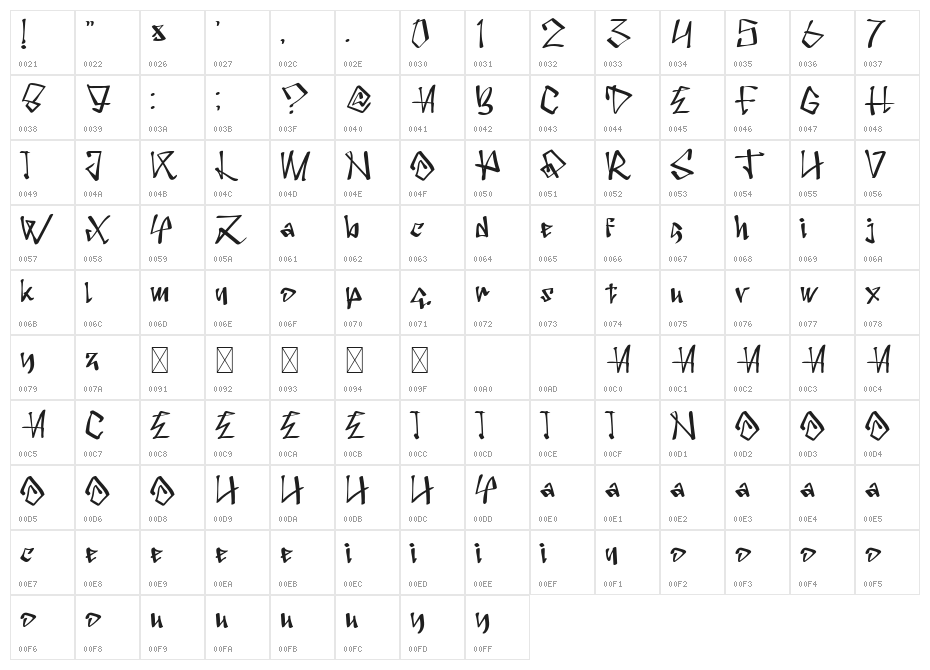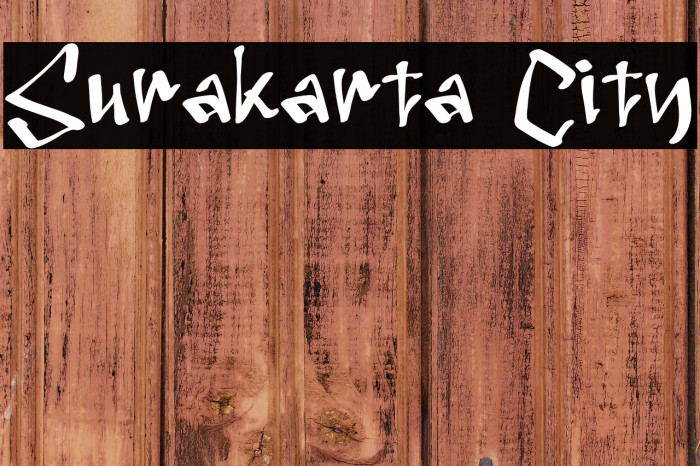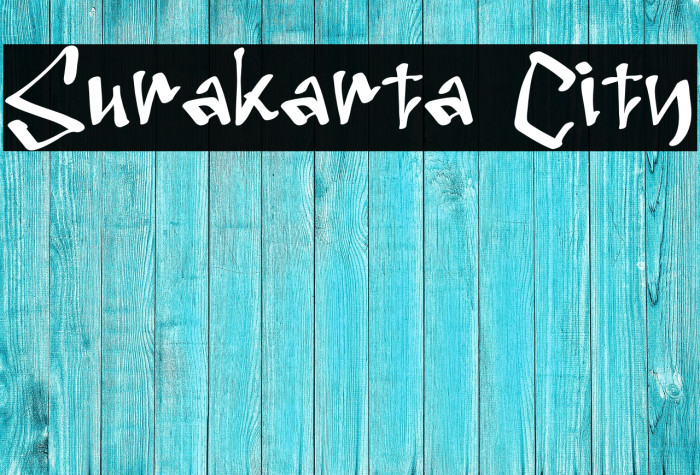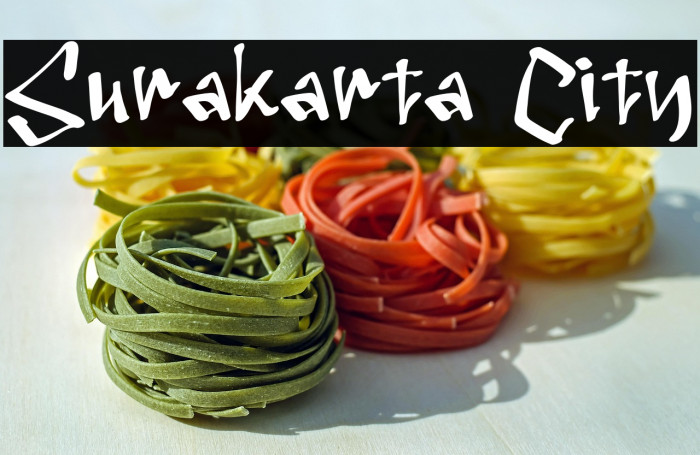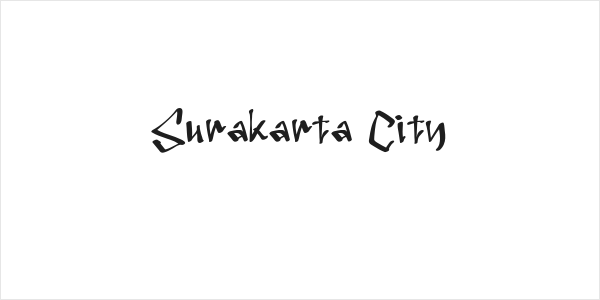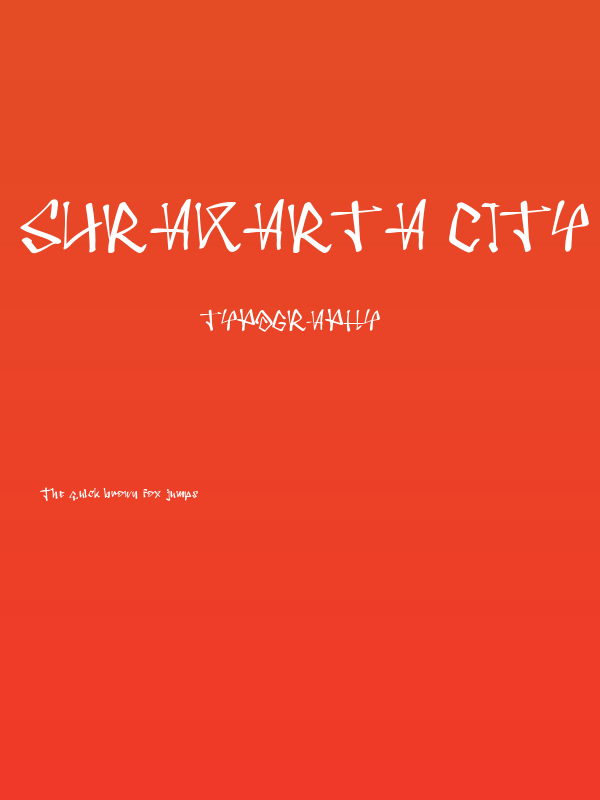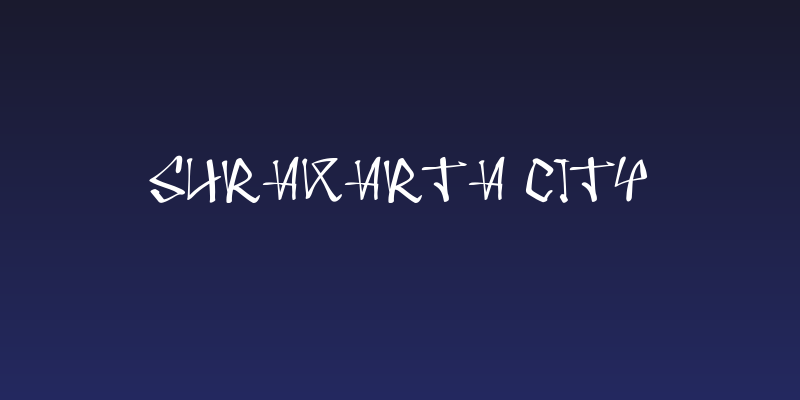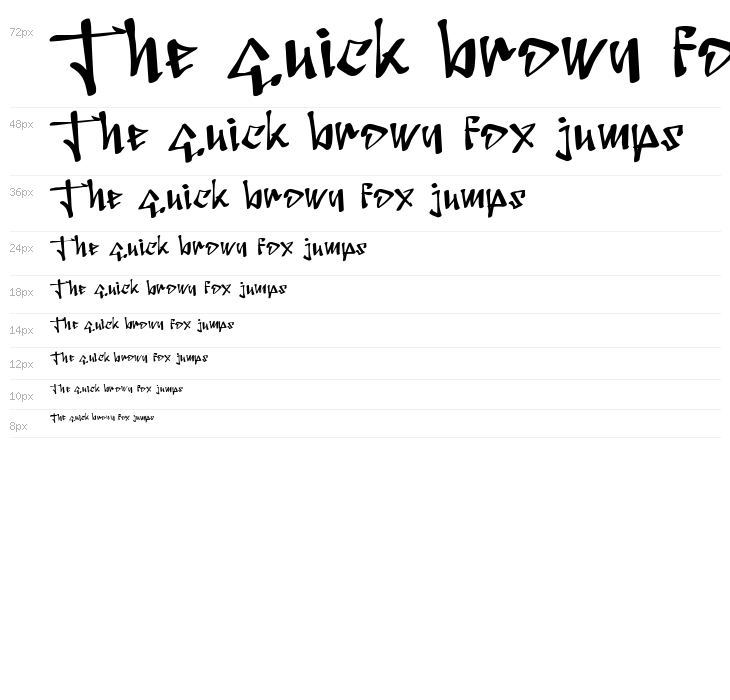
Surakarta City Font
Surakarta City Description
This font features a unique and artistic style that combines elements of both modern and traditional calligraphy. The uppercase letters are characterized by sharp angles and distinctive curves, giving them a dynamic and edgy appearance. The lowercase letters maintain a consistent flow, with some letters featuring unexpected twists and turns that add to the overall artistic flair. The numerals are bold and slightly geometric, complementing the letterforms. Special characters are creatively designed, maintaining the font's overall aesthetic. This font is perfect for projects that require a bold and artistic touch.
| Overall Style | Modern, Artistic |
| Proposed Projects | Ideal for branding, poster design, album covers, and creative advertising campaigns. |